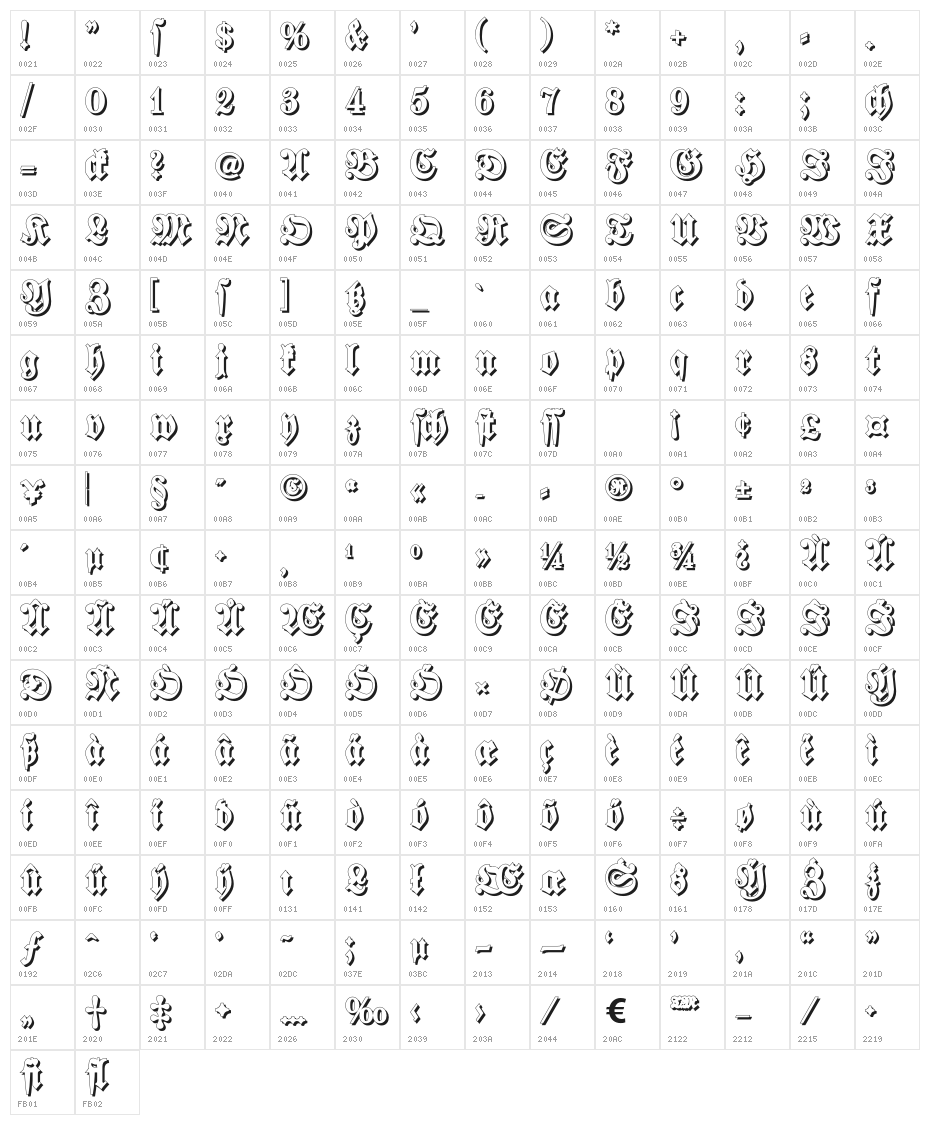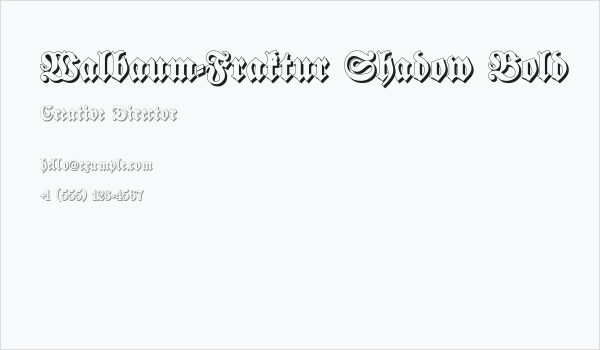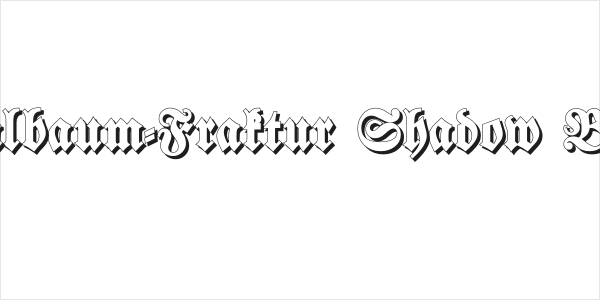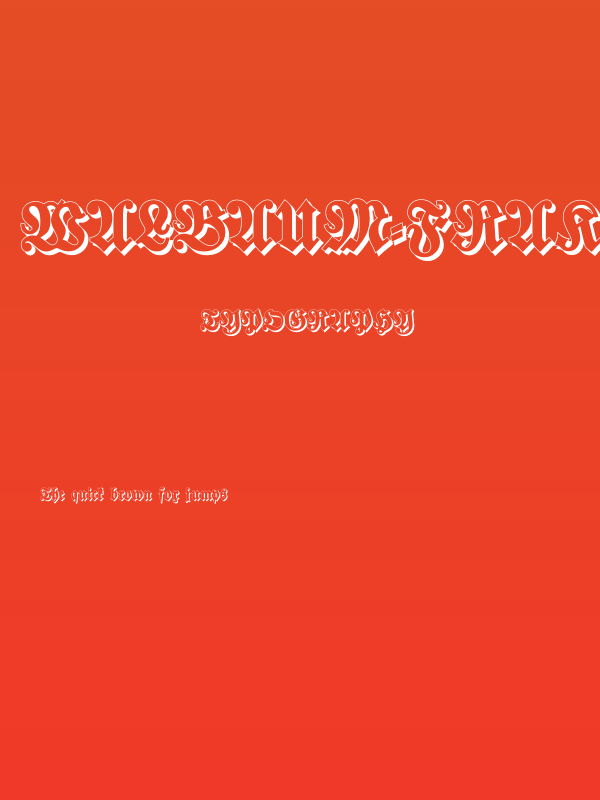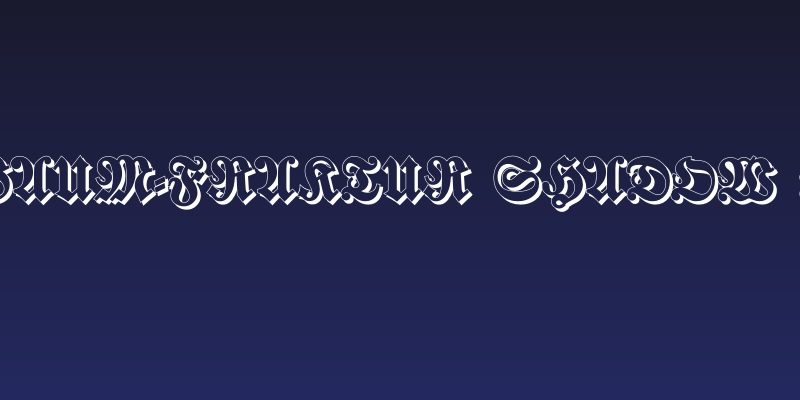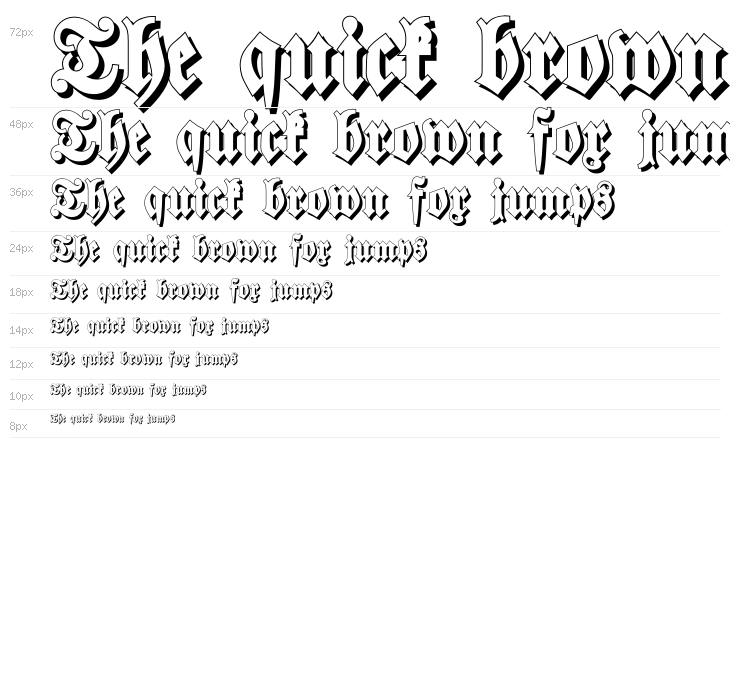
Walbaum-Fraktur Shadow Bold Font
Walbaum-Fraktur Shadow Bold Description
This font is a bold and striking blackletter style with a shadow effect that adds depth and dimension to each character. The uppercase letters are ornate and intricate, featuring sharp angles and dramatic flourishes that evoke a sense of historical elegance. The lowercase letters maintain the same level of detail, with a consistent weight and style that complements the uppercase set. Numbers and special characters are equally elaborate, ensuring a cohesive look across all text. The shadow effect enhances the font's visual impact, making it ideal for attention-grabbing designs.
Overall StyleVintage
Use CaseHeadlines, Logos, Decorative text
Proposed ProjectsIdeal for vintage-themed posters, book covers, branding for historical or gothic-themed events, and decorative signage.